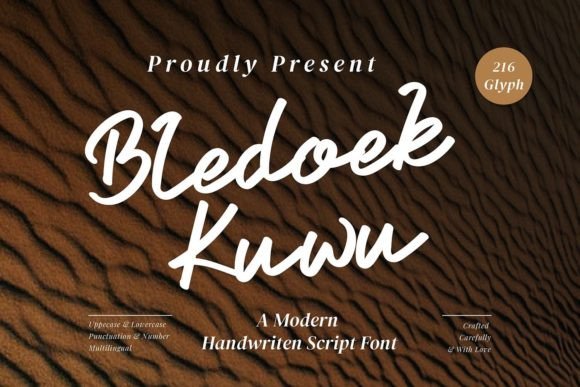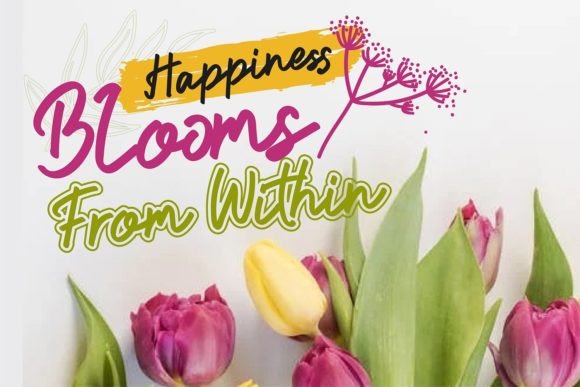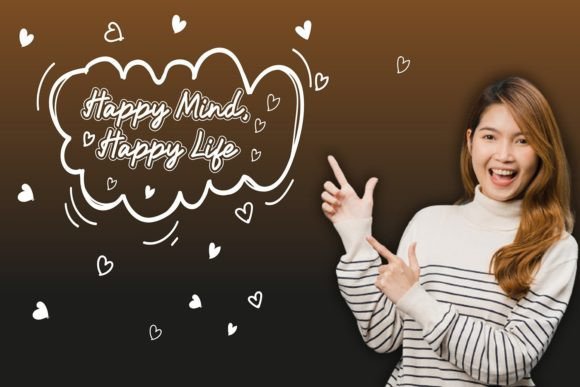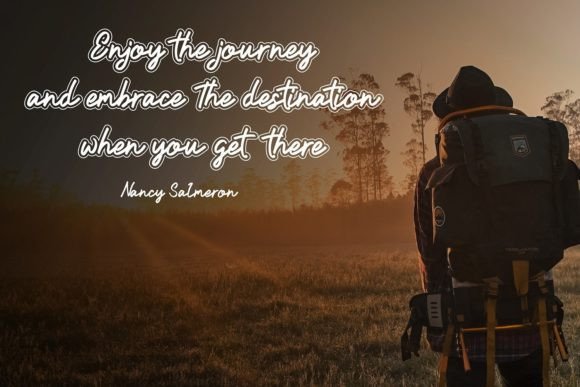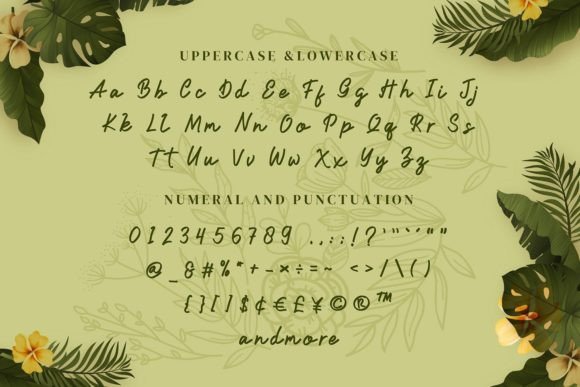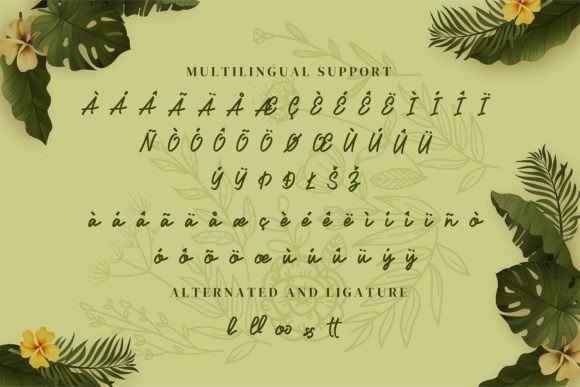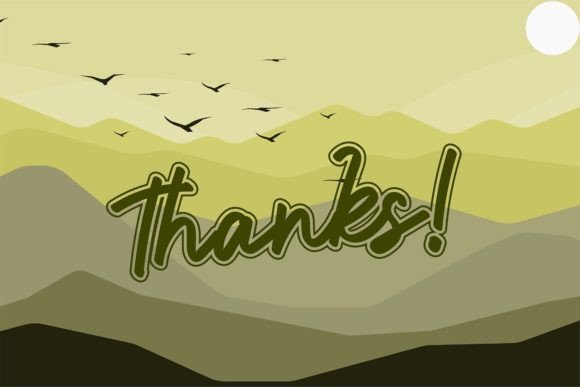
Bledoek Kuwu Font
About Bledoek Kuwu Font
Bledoek Kuwu isn’t just a font; it’s a stylish and delicate script that effortlessly blends sophistication with a clean and smooth aesthetic. The thin strokes and graceful lines give this font a refined vibe, making it a standout choice for a wide range of design projects. Whether you’re working on branding, invitations, advertisements, or any creative endeavor, Bledoek Kuwu is poised to be a hit, adding an elegant touch to your designs.
The clean and thin characteristics of Bledoek Kuwu make it versatile and suitable for various applications. Its smooth vibe ensures readability while maintaining a sense of delicacy, making it an excellent choice for both short and long text passages. This font has the power to elevate your designs with a touch of sophistication, creating a visual language that is both modern and timeless.
Bledoek Kuwu is the epitome of style, and its delicate script is designed to complement a diverse range of design contexts. Whether you’re aiming for a minimalist look or a more elaborate design, this font adapts seamlessly to your creative vision.
Add Bledoek Kuwu to your design toolkit, and witness how it effortlessly becomes the go-to choice for projects that demand a balance of style and subtlety. Its versatility and clean, smooth vibe make it a reliable companion for designers seeking a font that not only looks good but also enhances the overall aesthetic of their work. Embrace the elegance of Bledoek Kuwu and let your designs speak with a refined, delicate charm.